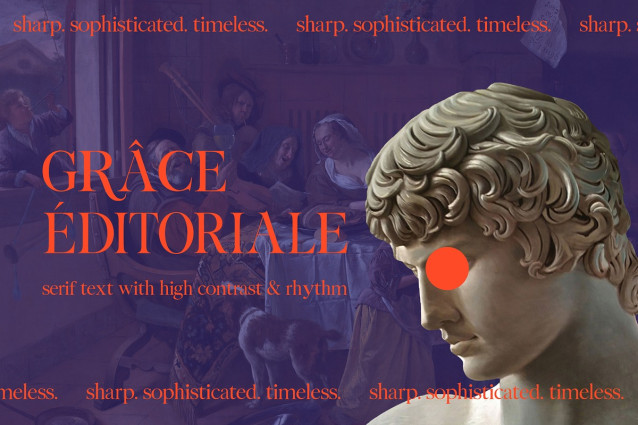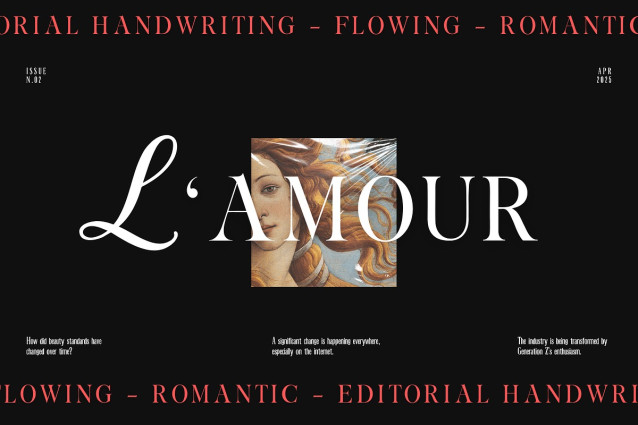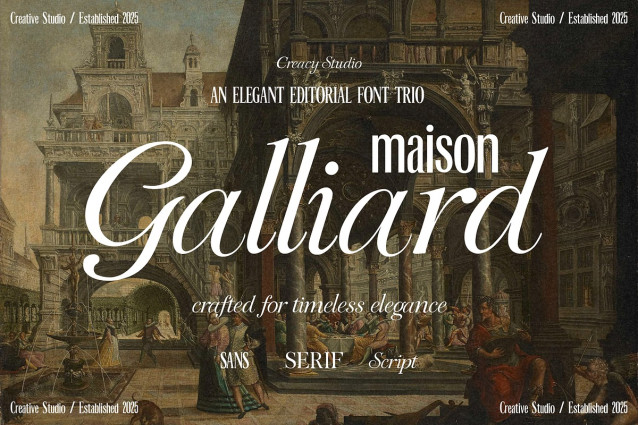
Maison Galliard Font Trio
Maison Galliard Font Trio is an elegant editorial font family featuring three distinct styles: Serif, Sans Condensed, and Script. Inspired by 1960s French editorial design and Renaissance type aesthetics, this trio is crafted to bring timeless sophistication and expressive flair to your visual storytelling.
Whether you’re designing a luxury brand identity, a modern magazine layout, or romantic packaging, Maison Galliard gives you the flexibility to mix strong contrast, clean structure, and flowing handwriting—all in one cohesive system.